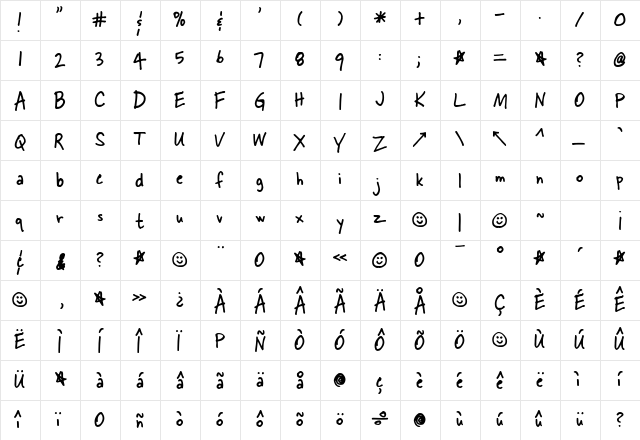
Skippy Sharpie Regular
Skippy Sharpie is a composed and adaptable typeface that performs quietly and consistently across a wide range of design contexts.